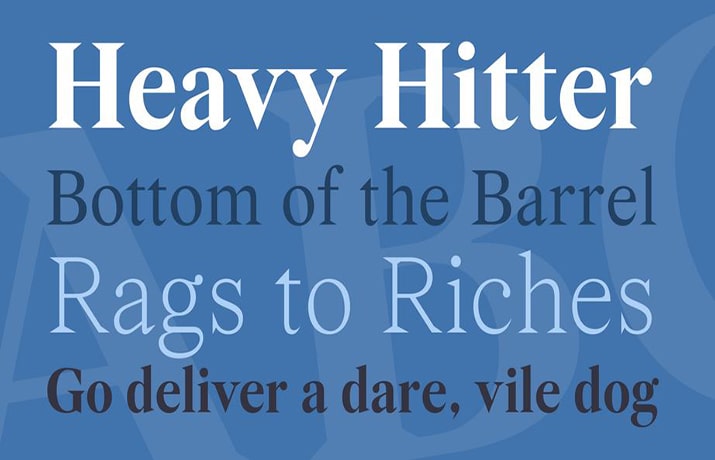
Wremena Font is a perfectly modern and serif typeface that has an awesome stylish texture with a cute appearance.
Roman Gornitsky took the charge of creating and publishing it via the Russian foundry The Temporary State in 2017.
It gives a beautiful look and protects the creative fee of your content. It helps you accomplish many tasks as per your needs.
So, now it has a huge collection of characters that will be useful for the average user. That’s why this remarkable font is fully prepared for small to large projects.
It is ideal for designing logos, business cards, greeting card designs, brochure layouts, advertising posters, printing banners, branding, label designs, and various other related methods. It is also a good idea to use this font family for titles.
It has available in three weights including Regular, Bold, and Light. Each weight has 479 characters along with Opentype features.